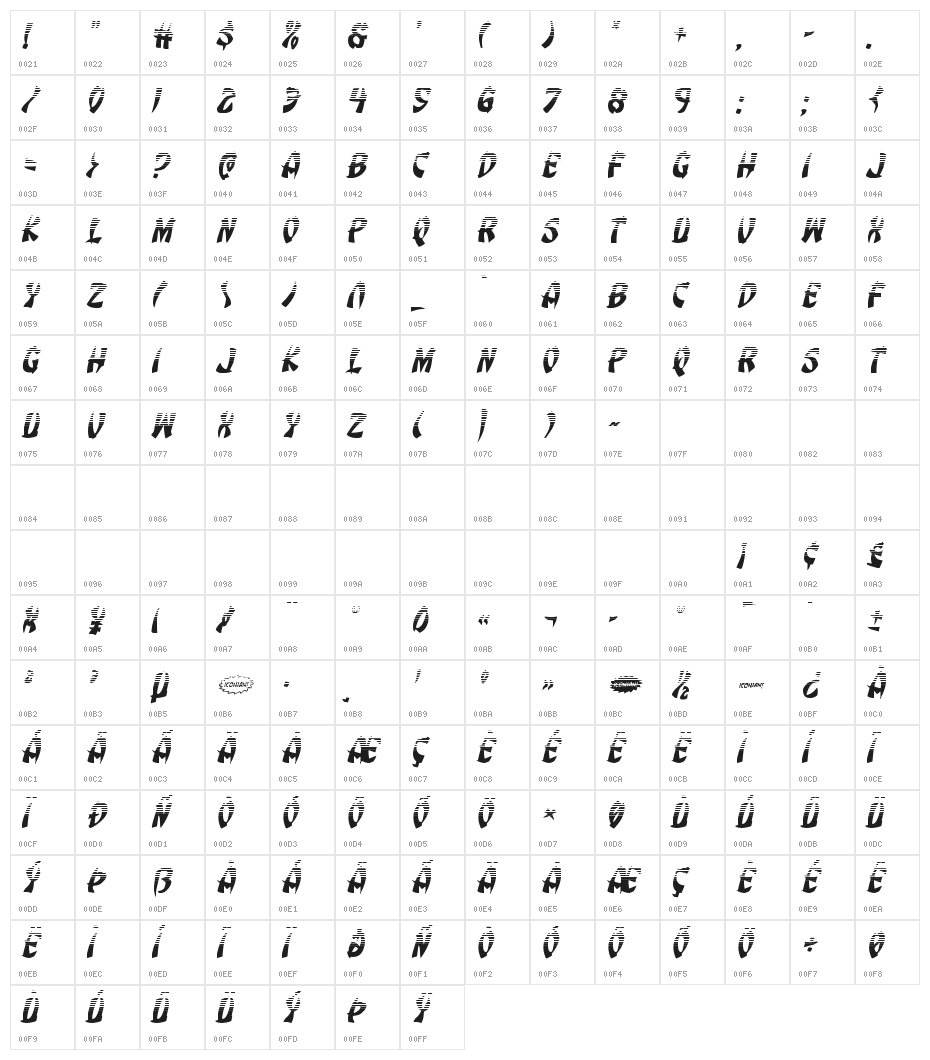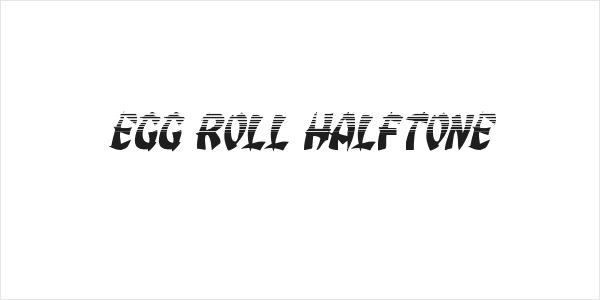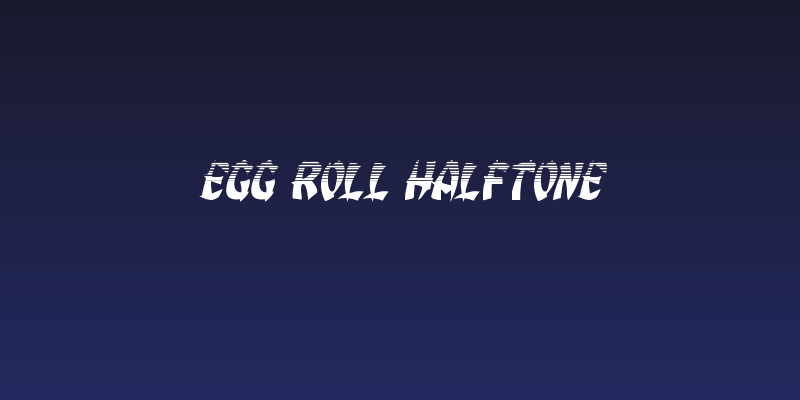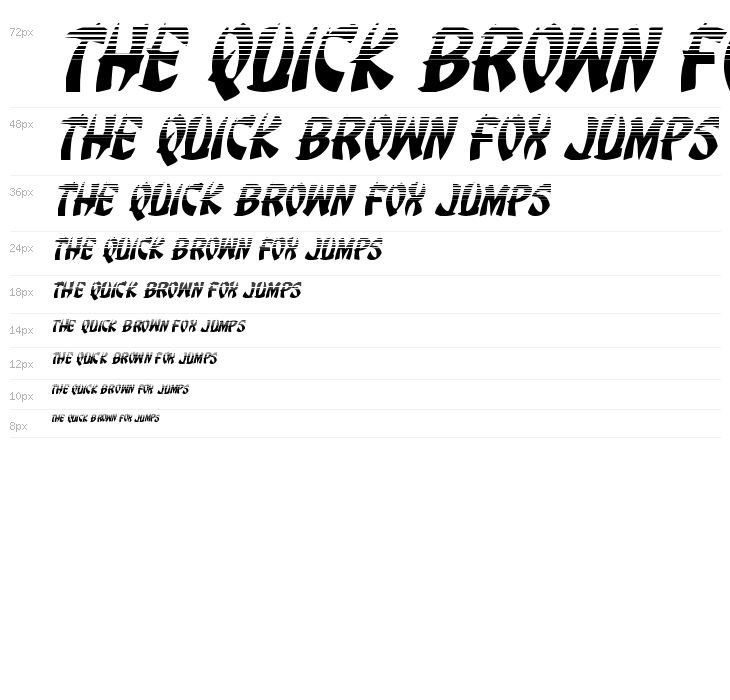
Egg Roll Halftone Font
Egg Roll Halftone Description
This font features a bold and dynamic design with a halftone effect that creates a sense of movement and energy. The characters are stylized with sharp angles and a unique pattern of horizontal lines that give a textured appearance. The uppercase and lowercase letters maintain a consistent style, while the numbers and special characters integrate seamlessly with the overall design. This font's distinctive look makes it stand out, offering a modern twist on traditional typography.